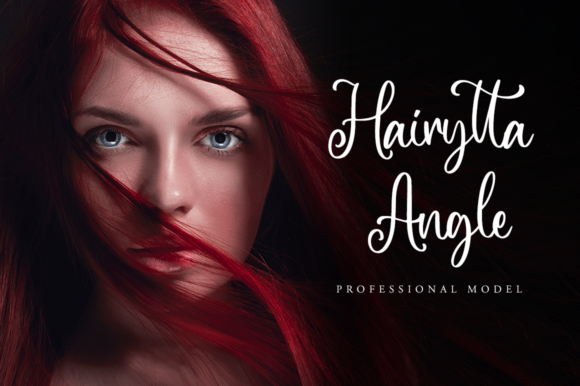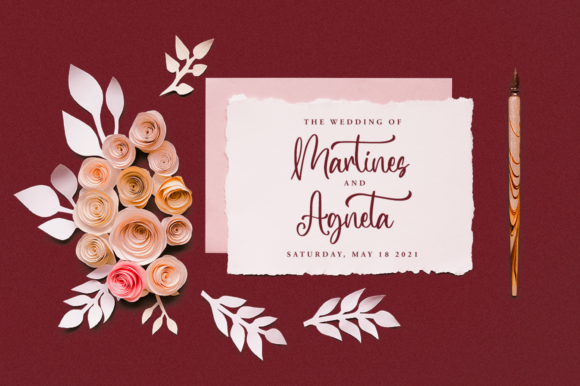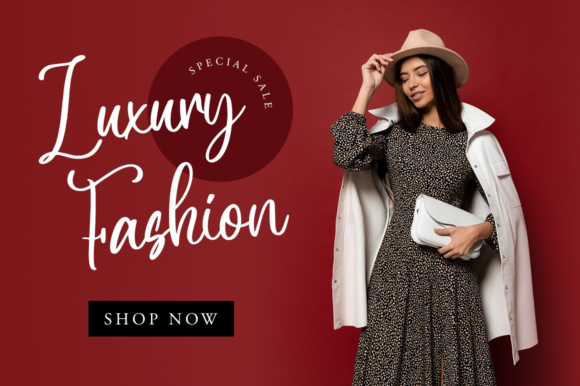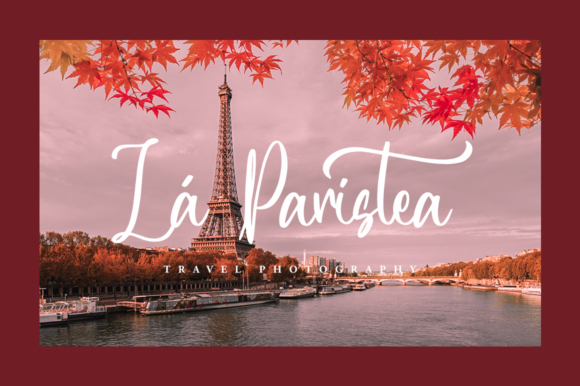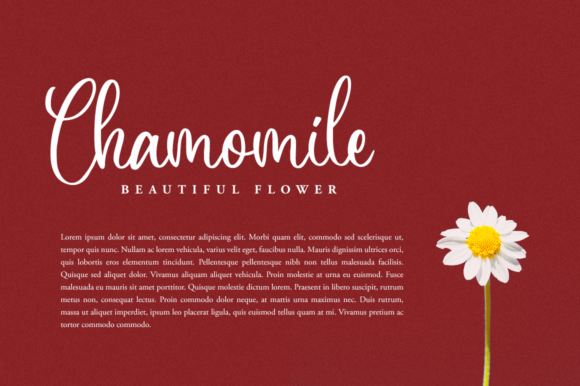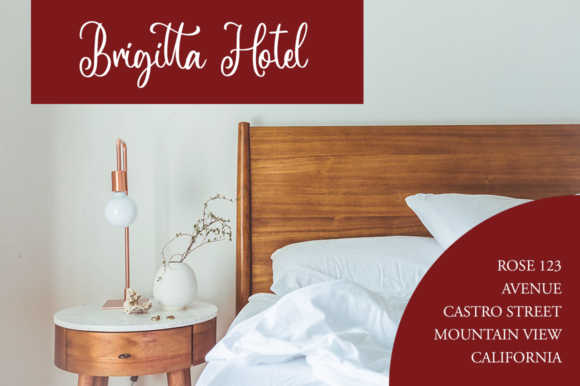
Introducing Aringtone Font: Elevate Your Designs with Elegant Script
Are you tired of using the same old fonts in your designs? Look no further than Aringtone Font, an elegant script font that brings a touch of sophistication and modernity to any project. Inspired by timeless classic calligraphy, Aringtone is the perfect choice for designers and crafters looking to add a level of refinement and beauty to their work.
The Inspiration Behind Aringtone Font
Aringtone Font is a masterful blend of traditional calligraphy and contemporary design. Its creator drew inspiration from the classic scripts of the past, carefully balancing the thickness and thinness of the lines to create a font that is both elegant and legible. The result is a font that exudes a sense of sophistication and refinement, perfect for a wide range of design applications.
Key Features of Aringtone Font
- Balanced and Varied: Aringtone Font is designed to be balanced and varied, with a perfect mix of thick and thin lines that create a sense of movement and fluidity.
- Not too Thin and Not too Thick: Unlike some script fonts that can be too thin or too thick, Aringtone Font strikes the perfect balance, making it easy to read and beautiful to look at.
- Elegant and Contemporary: Aringtone Font has a timeless quality that makes it perfect for both traditional and modern designs.
- Impeccable Form: Every letter and character in Aringtone Font has been carefully crafted to ensure that it is perfectly formed and proportioned.
Uses for Aringtone Font
Aringtone Font is a versatile font that can be used in a wide range of design applications, including:
- Branding and Logo Design: Aringtone Font is perfect for creating elegant and sophisticated logos that will help your brand stand out.
- Wedding and Event Design: Add a touch of elegance and refinement to your wedding and event designs with Aringtone Font.
- Packaging and Product Design: Use Aringtone Font to create beautiful and eye-catching packaging that will make your product stand out on store shelves.
- Graphic Design and Illustration: Aringtone Font is a great choice for graphic designers and illustrators looking to add a touch of sophistication to their work.
Why Choose Aringtone Font?
There are many script fonts available, but Aringtone Font stands out from the crowd for several reasons:
- Unique and Elegant: Aringtone Font has a unique and elegant style that will add a touch of sophistication to any design.
- Highly Legible: Despite its elegant style, Aringtone Font is highly legible, making it perfect for use in a wide range of design applications.
If you’re looking for a font that will add a touch of elegance and sophistication to your designs, look no further than Aringtone Font. With its balanced and varied lines, elegant and contemporary style, and impeccable form, Aringtone Font is the perfect choice for designers and crafters who want to create beautiful and refined designs. Whether you’re working on a branding project, wedding design, or packaging project, Aringtone Font is sure to impress.